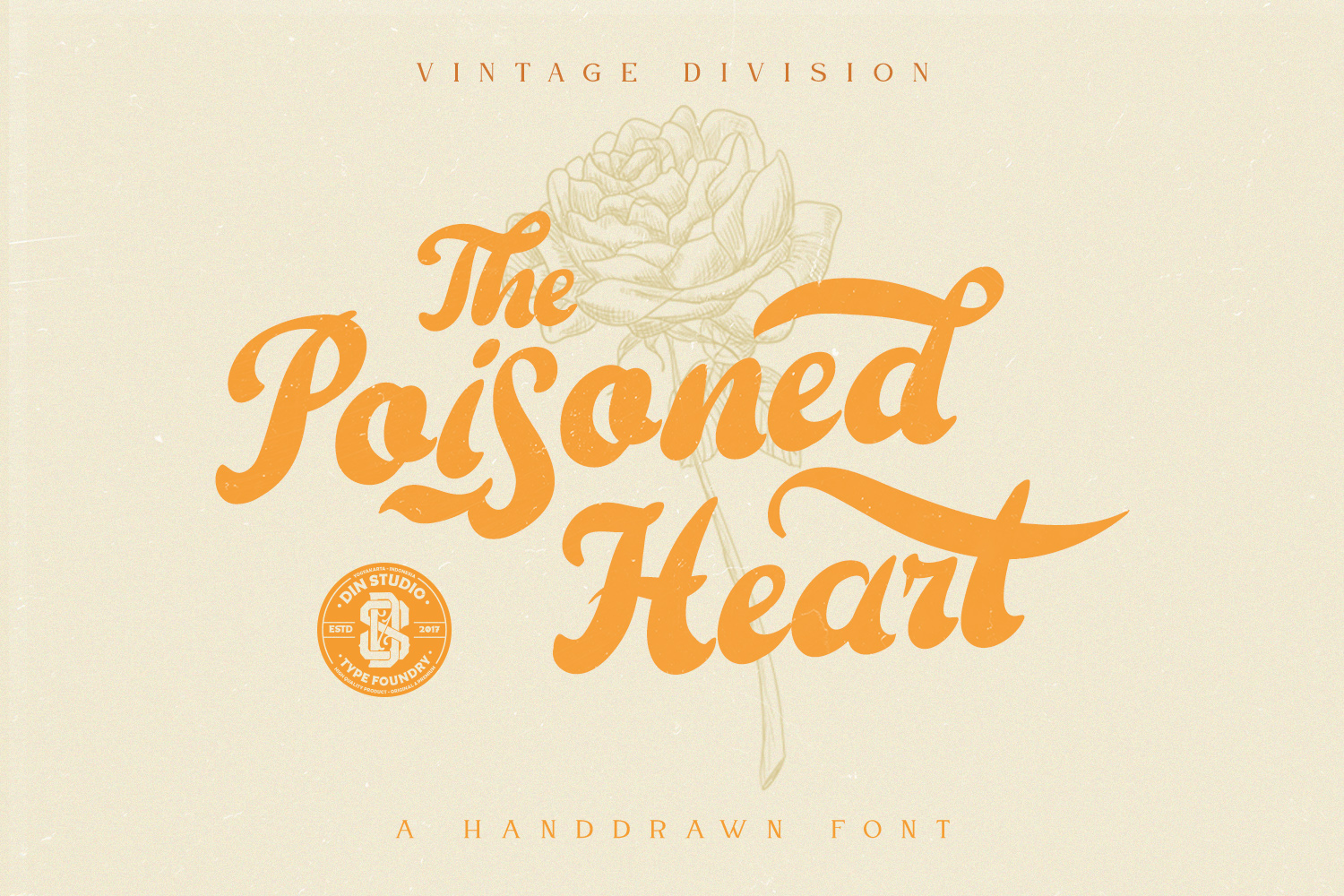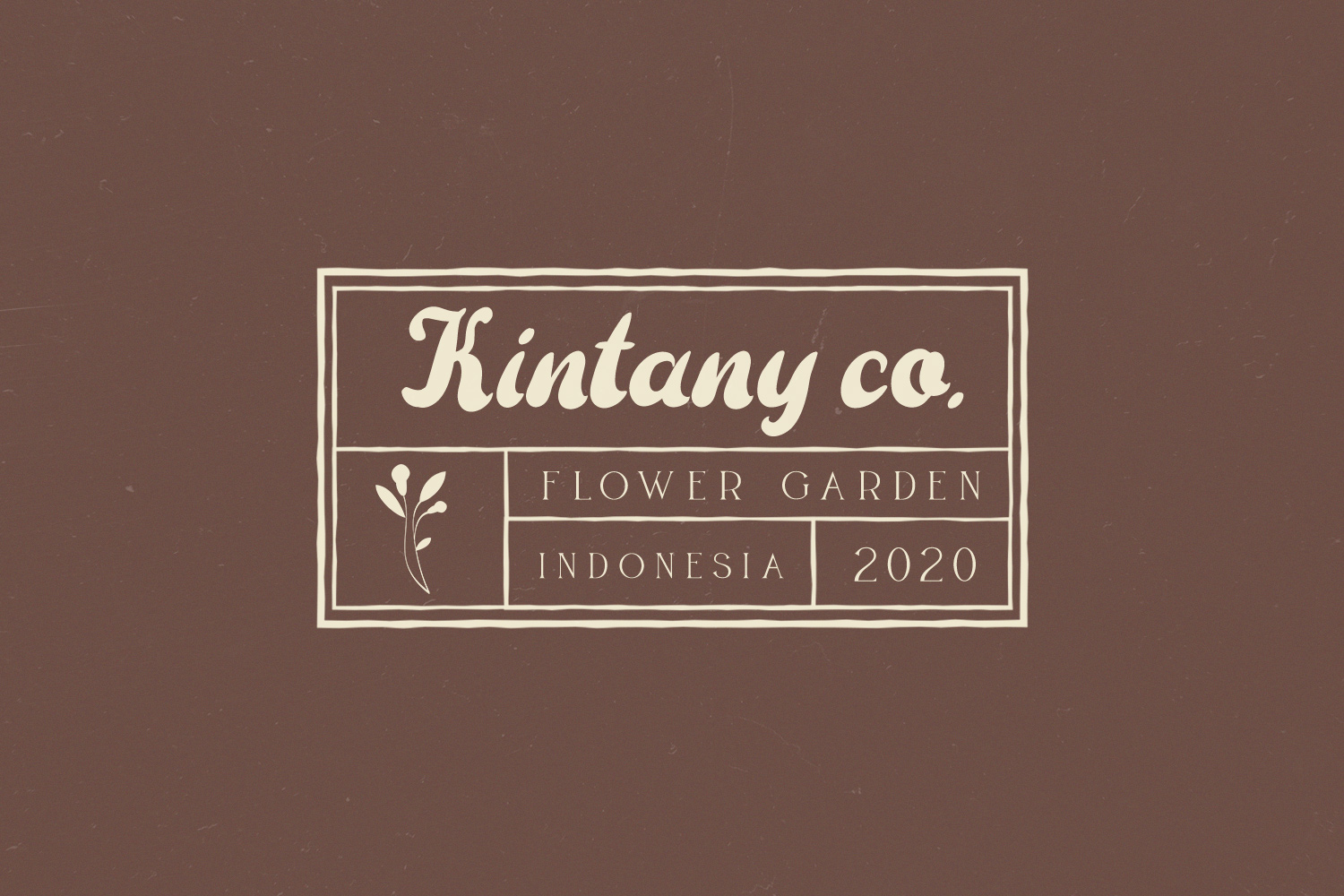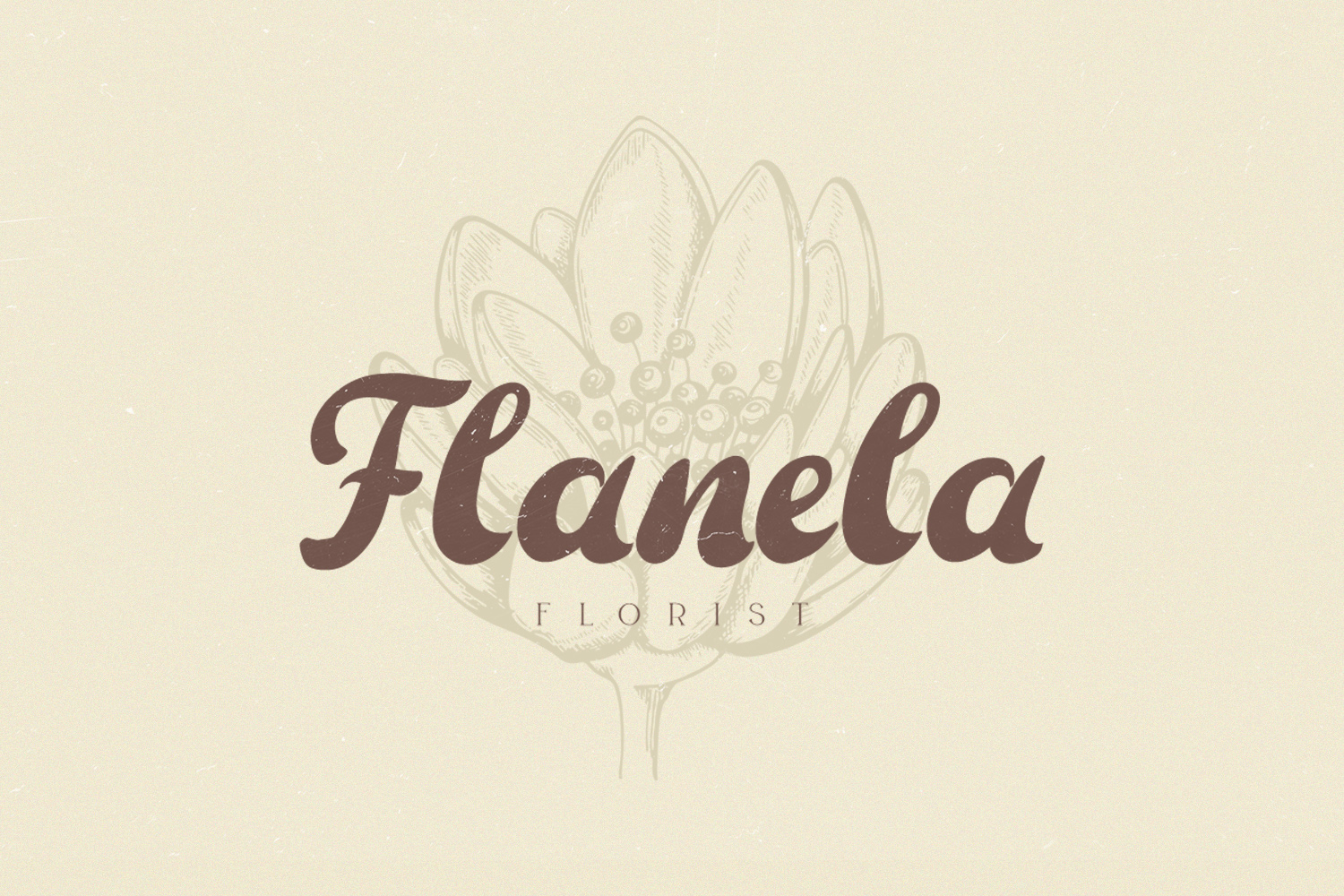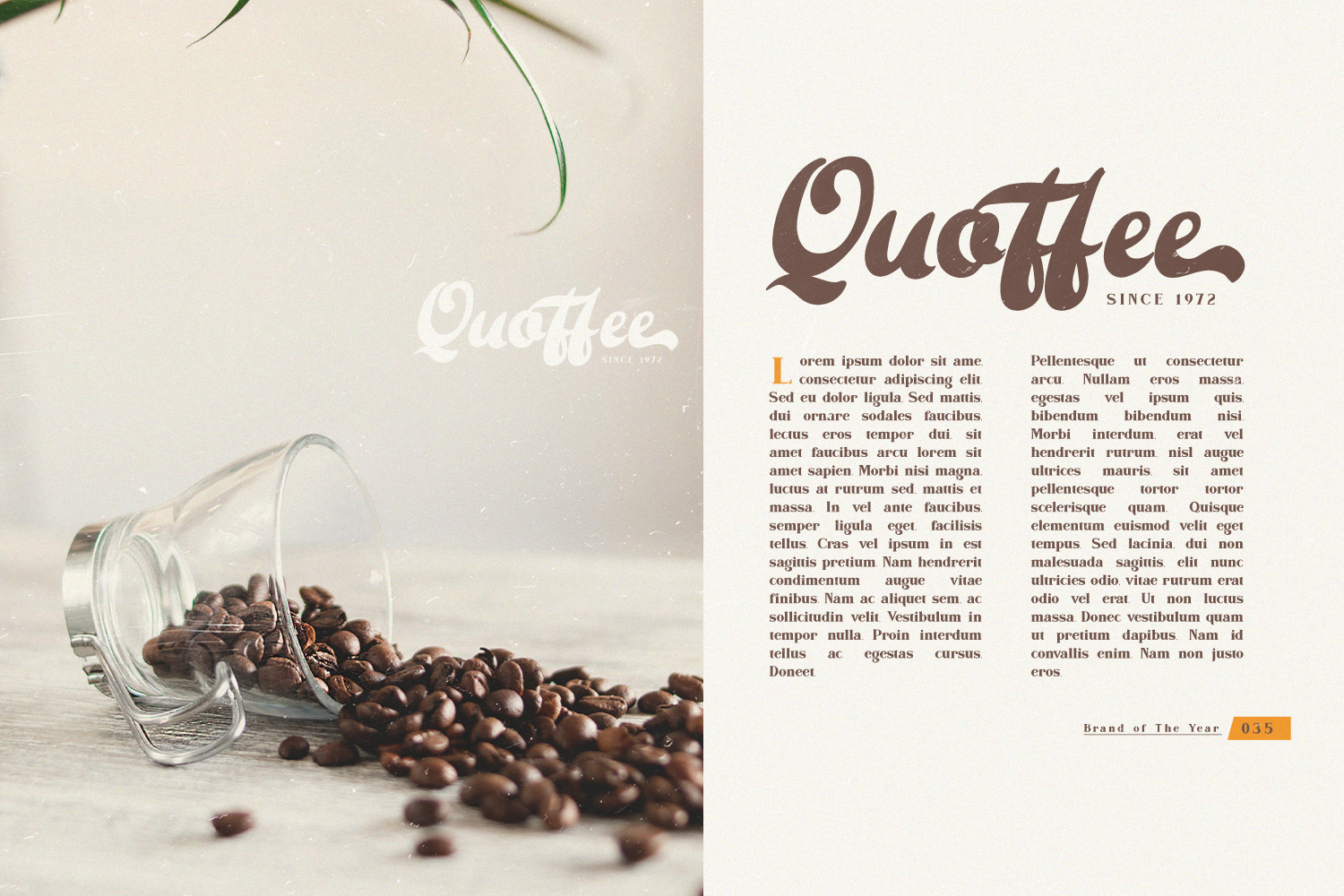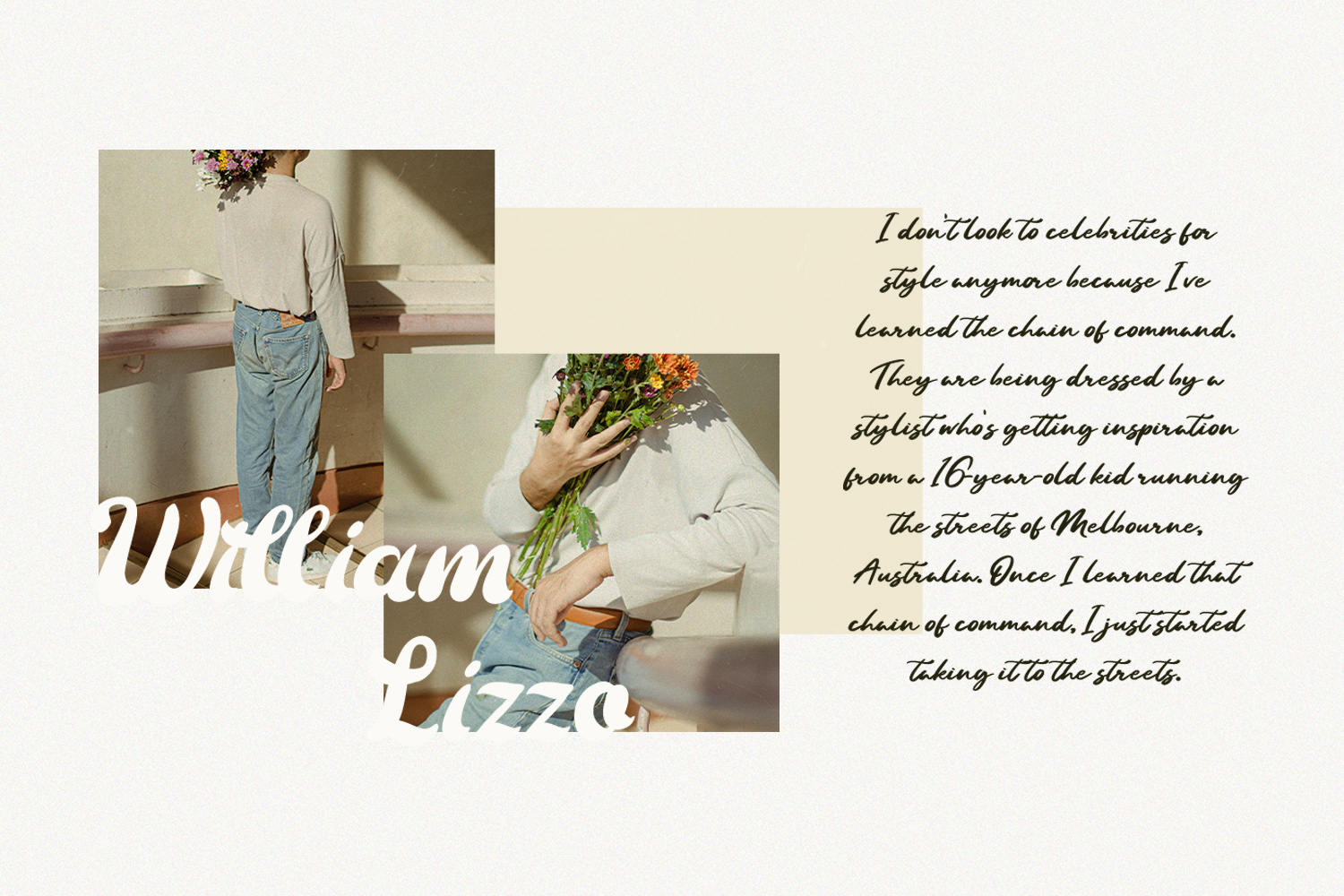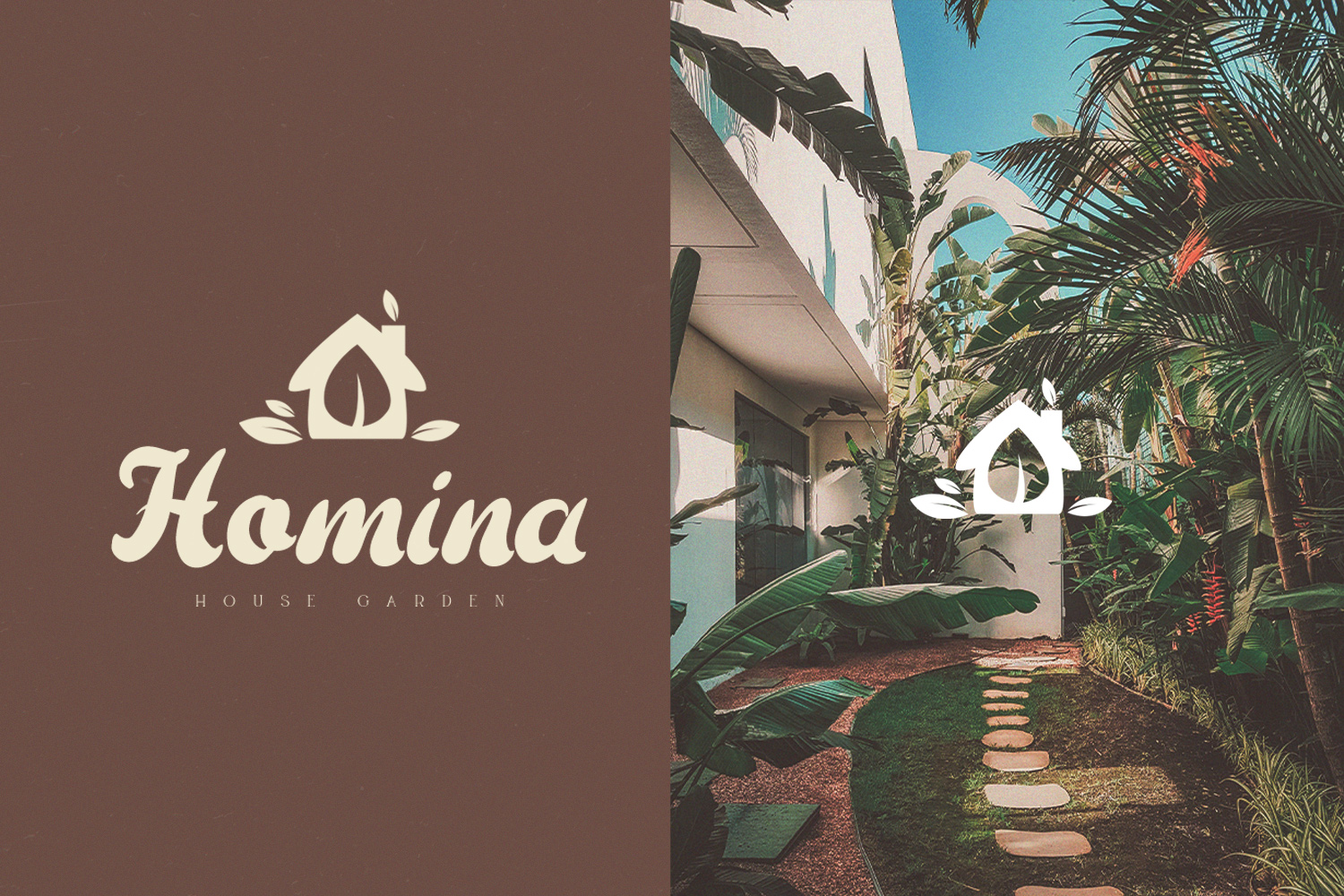
Hello, Guys! Introducing The Poisoned Heart Script. The beautiful retro script. Made with naturally handwritten. The font will make your design more beautiful and powerful.
- 76 Alternates
- 10 Ligatures
The Poisoned Heart fits in headlines, logos, posters, flyers, branding materials, print media, editorial layouts, and many more. Find out more ways to use this font by taking a look at the font preview.